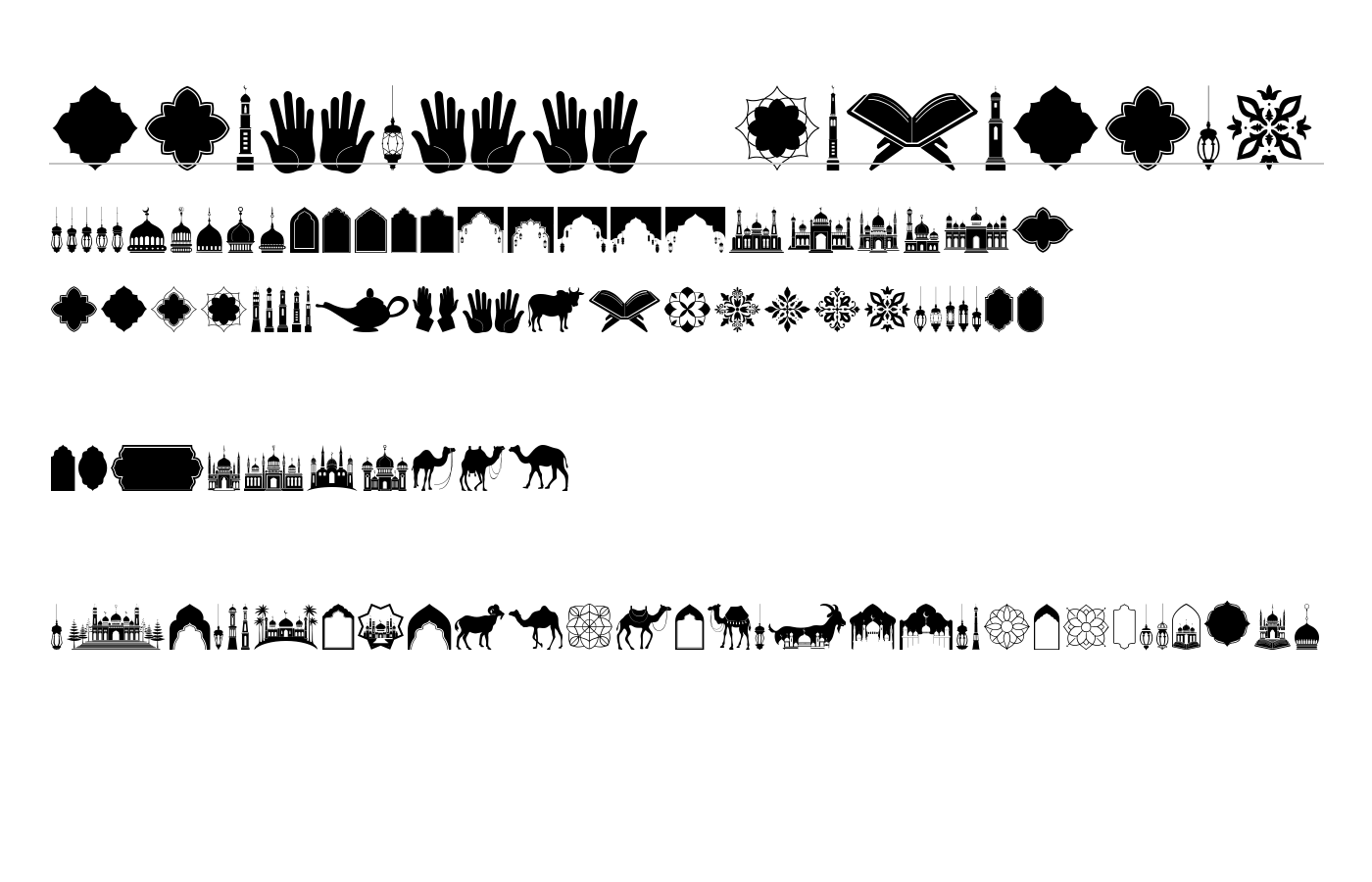
Bahlull Dingbats is a decorative symbol font featuring intricate icons inspired by Middle Eastern and Islamic art and culture, such as mosques, lanterns, camels, hands, and geometric patterns. This font works well for adding a unique cultural touch to event invitations, branding for cultural festivals, or thematic design projects where elegant, symbolic visuals are needed to convey tradition and spirituality. Its rich, detailed motifs make it ideal for accenting designs rather than body text, adding artistic interest and cultural depth.
bahlull dingbats Font
About bahlull dingbats Font